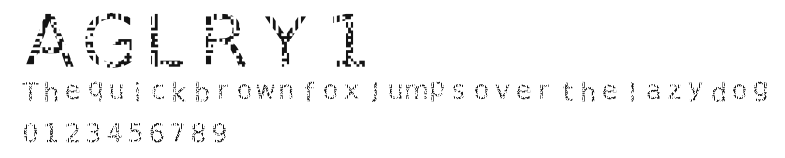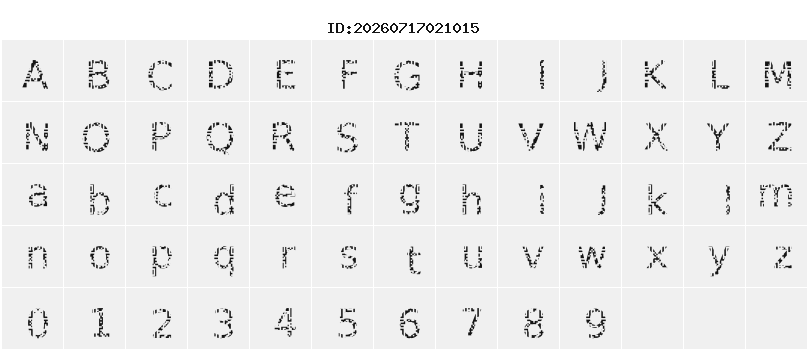
AGLRY 1 Preview
• Font Name: AGLRY 1
• Font ID: Rainkarnichi : AGLRY 1 : 6-3-2016
• Full Font Name: AGLRY 1
• PostScript Name: AGLRY1
• Character Count: 101
• Designer: Aydi Rainkarnichi
• Manufacturer: Rainkarnichi
About AGLRY 1.ttf
AGLRY 1.ttf is a modern, elegant sans-serif font designed for ultimate readability and visual harmony. Perfect for branding, headlines, web design, and print materials.